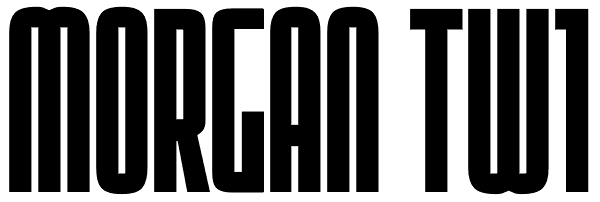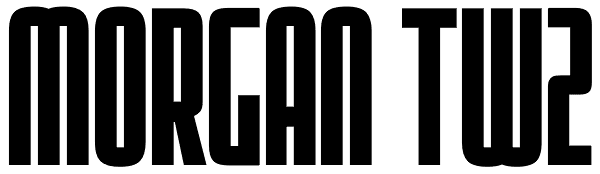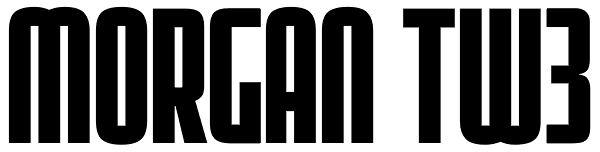
Morgan Tower
The Morgan Project can be considered a big type family with ‘many styles’ or a set of different types that match with each other. For me it’s one typeface with different versions with deliberate and visible differences according to the propose to...
Morgan Tw1
Morgan Tw2
Morgan Tw3
Morgan Tw4